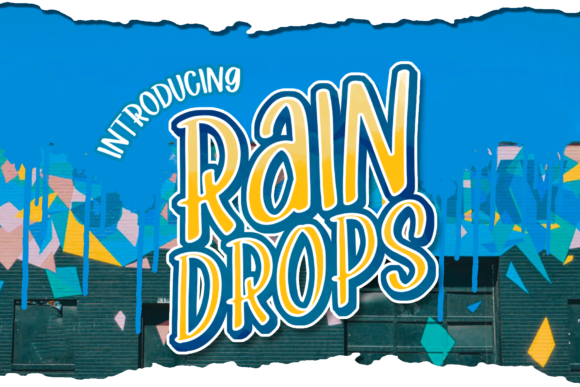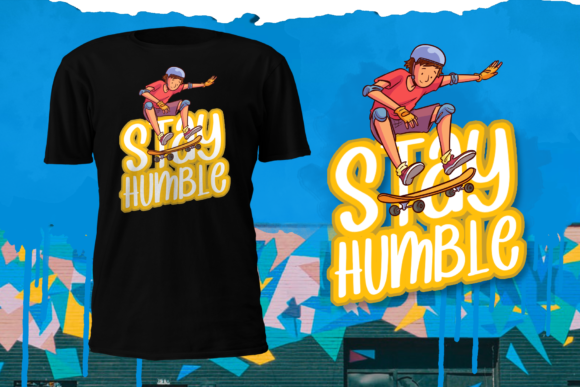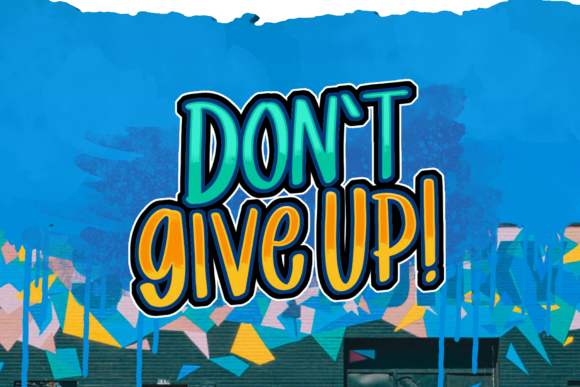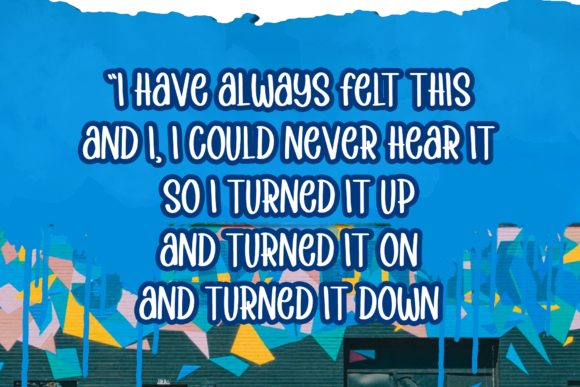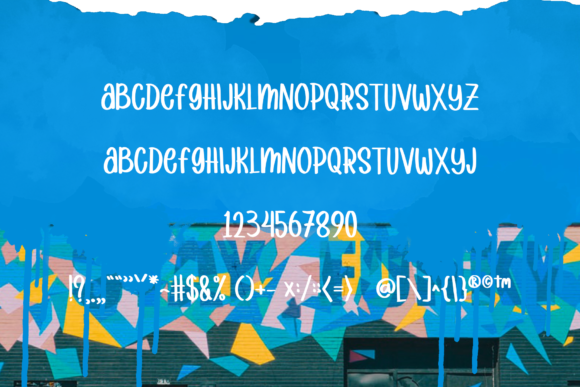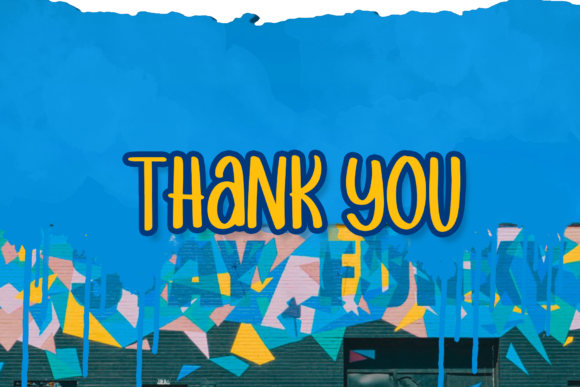
About Raindrops Font
Raindrops is a neat, tall and simple handwritten font. No matter the topic, this font will be an incredibly asset to your fonts’ library, as it has the potential to elevate any creation.